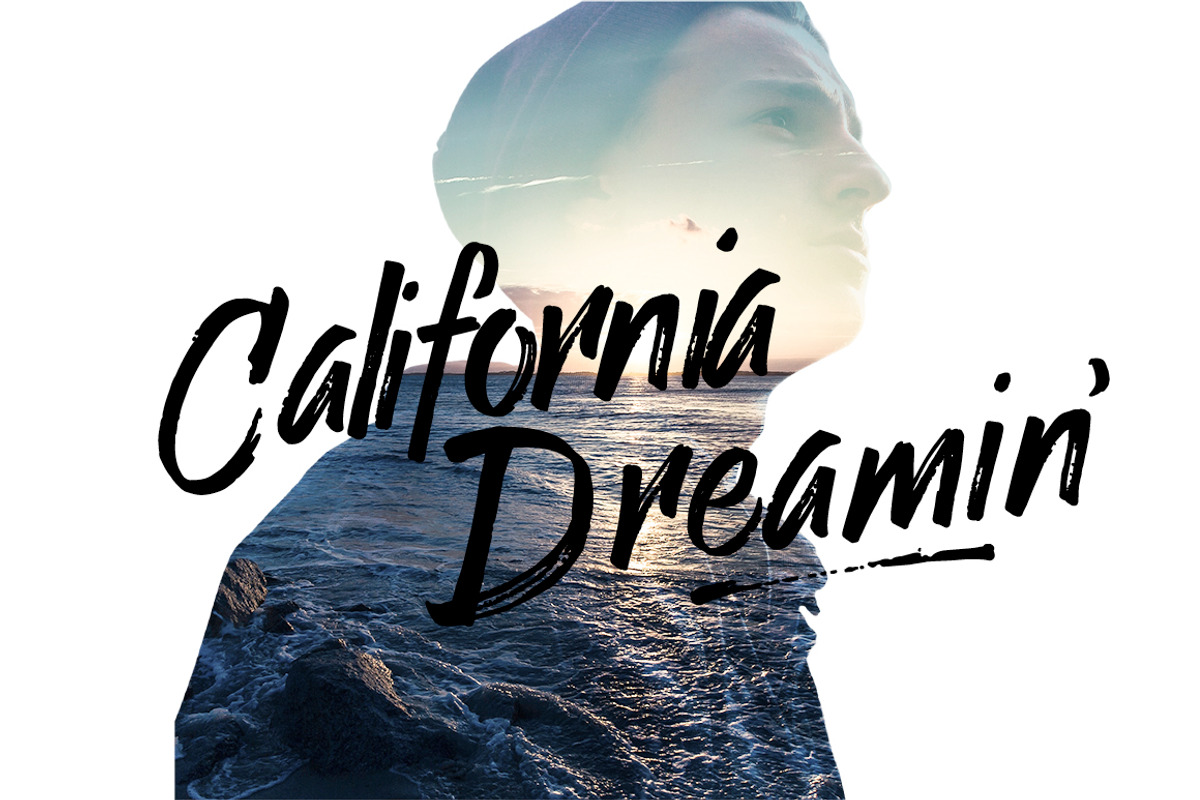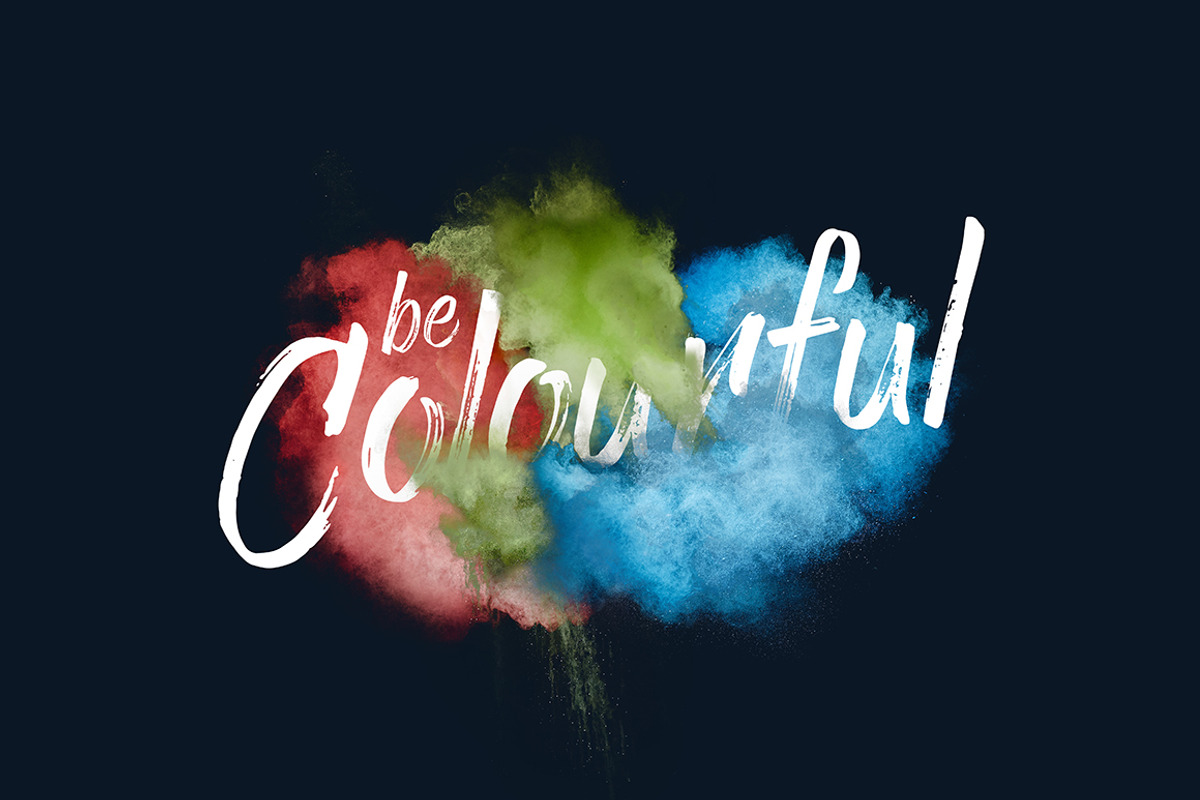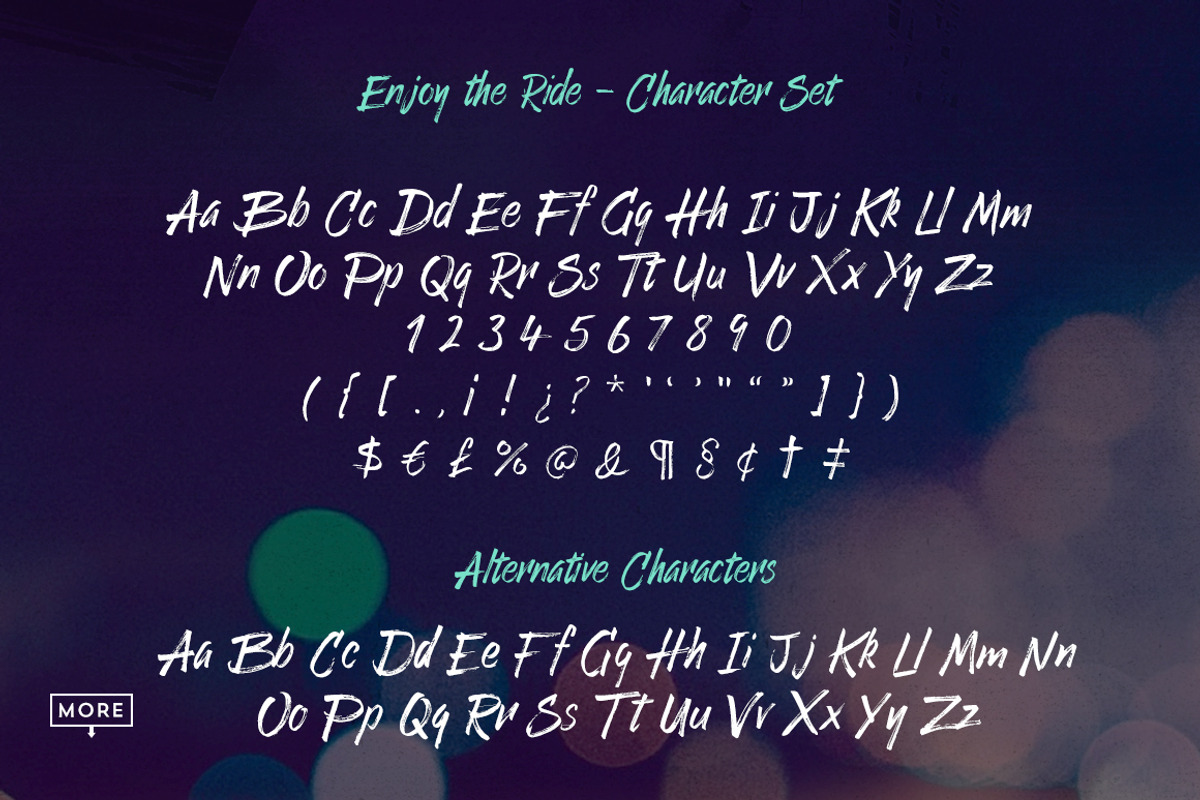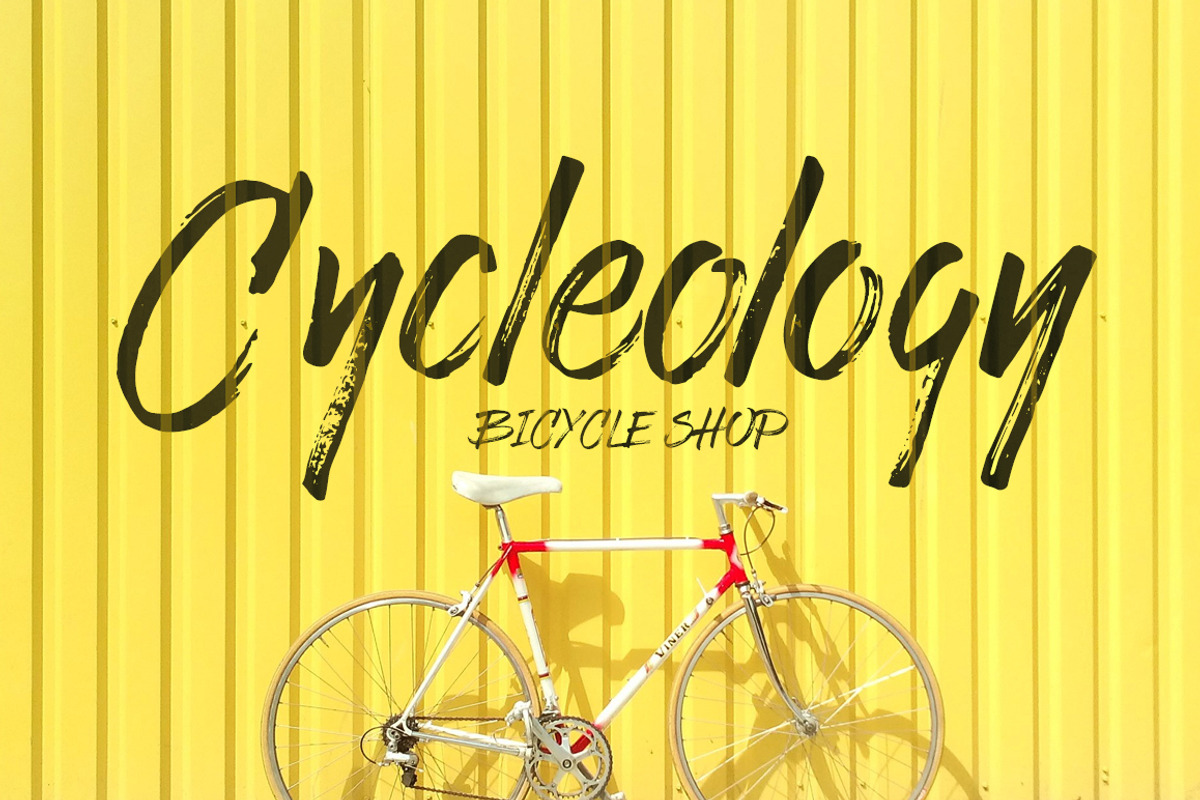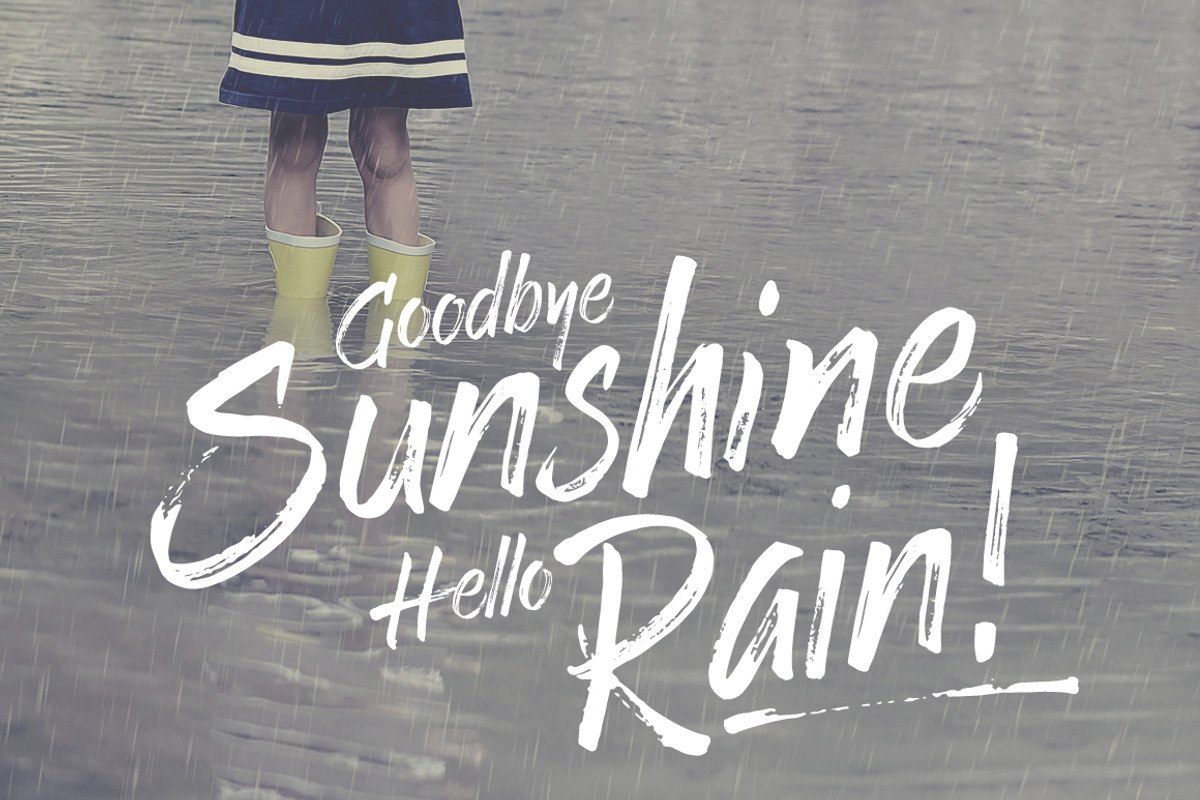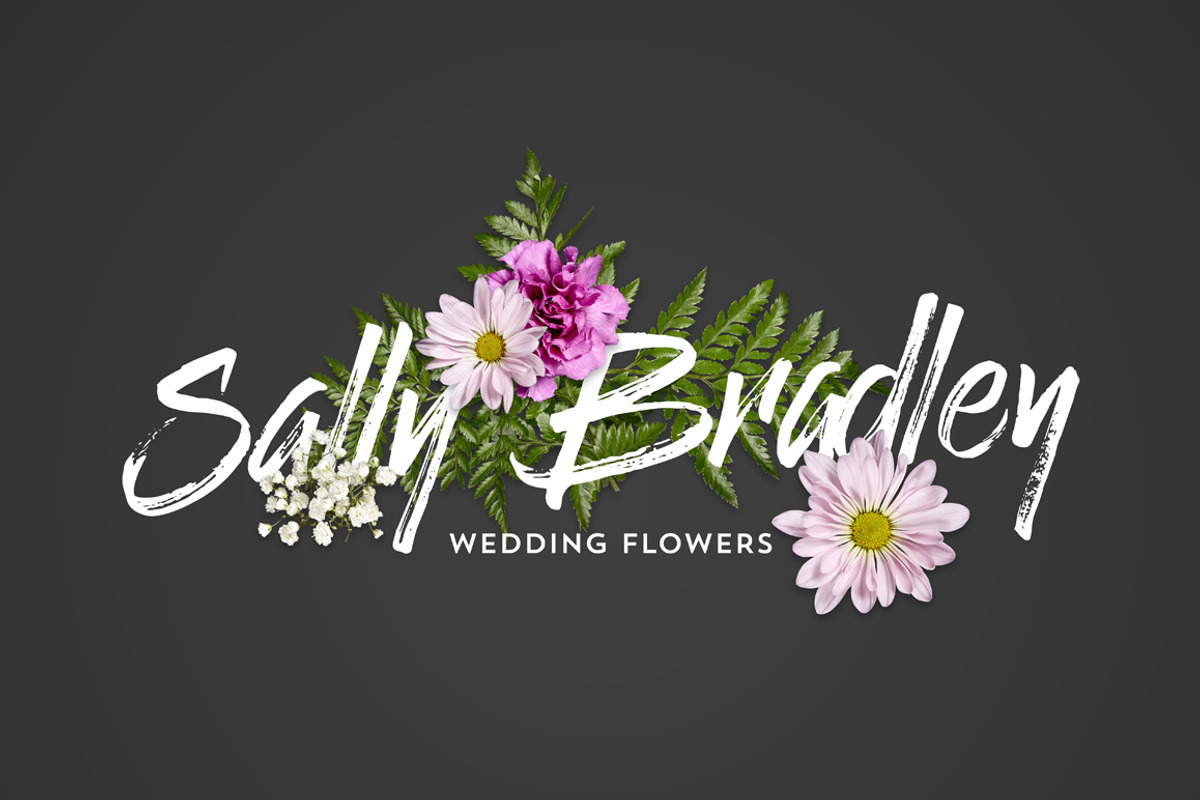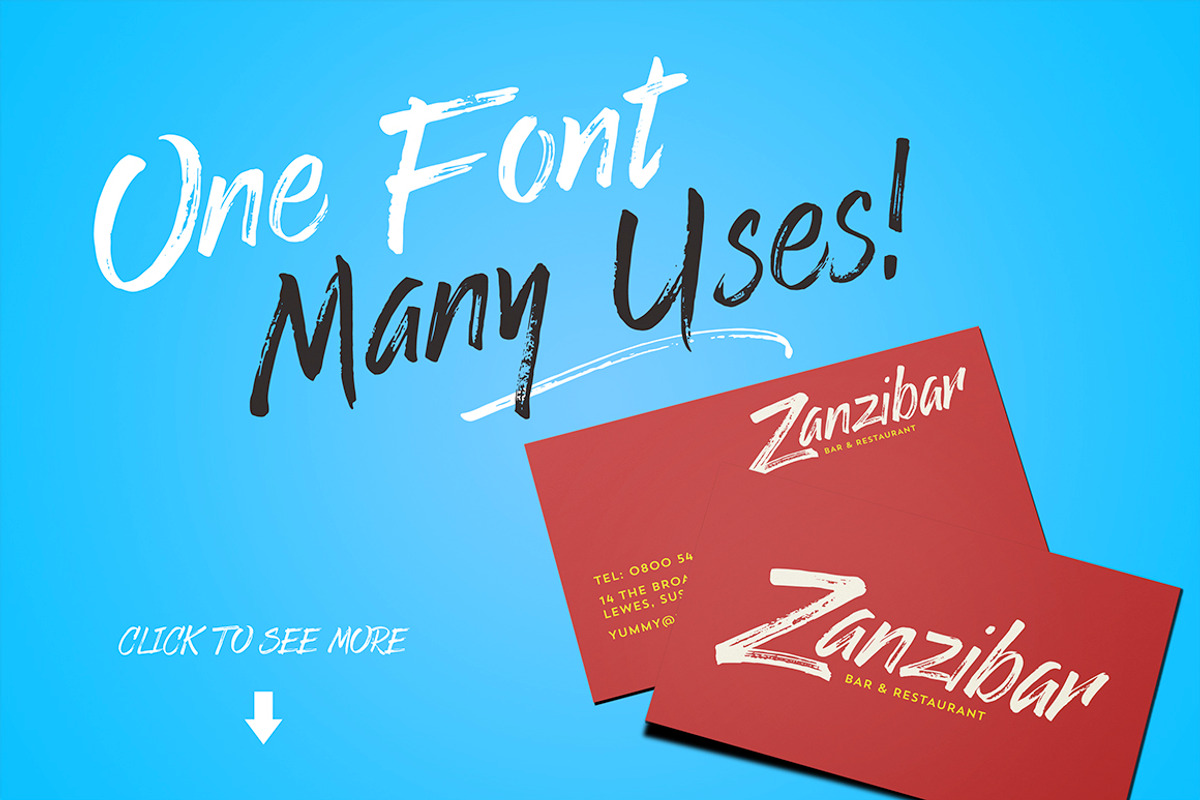
Enjoy the Ride - Typeface
Enjoy the Ride - Typeface by Ian Barnard is a font selected for branding, posters, packaging, typography.
- To add extra value to the font I've made sure that it also works amazingly when you use all the characters in uppercase.
Why Enjoy the Ride - Typeface is worth a look
Enjoy the Ride - Typeface by Ian Barnard fits naturally into Branding, posters, packaging, typography.